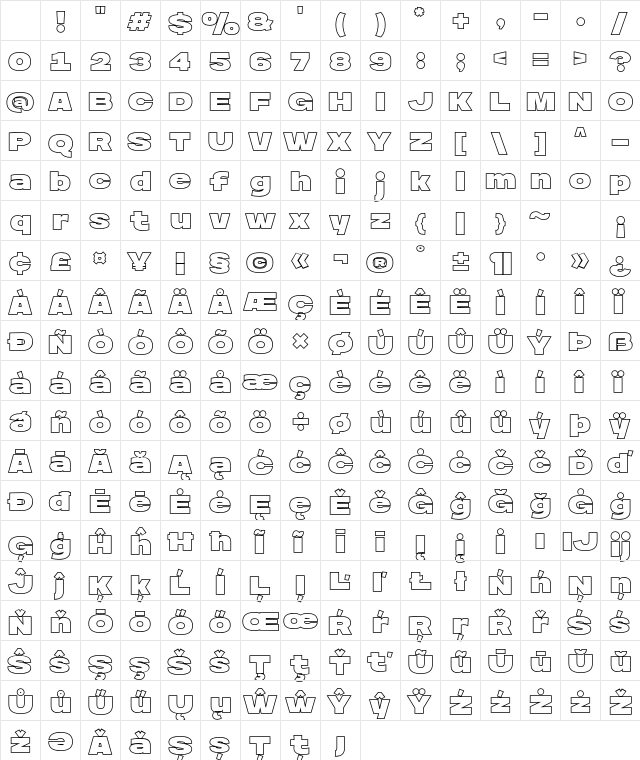
Complete Aniko Extrabold Outline Regular glyph index. Displaying only characters natively supported by Aniko Extrabold Outline Regular font.
Aniko Extrabold Outline is built around its visual character rather than neutral utility - its distinctive forms are designed to make an impression at display sizes. Its bold stroke weight gives it real presence on the page.
Font Pairing: Pair with a clean neutral sans-serif for body copy to let Aniko Extrabold Outline's character lead without overwhelming the composition.
Pro Tip: Use Aniko Extrabold Outline exclusively at display sizes - it was designed to be seen, not read at length. Let a neutral companion handle body copy.